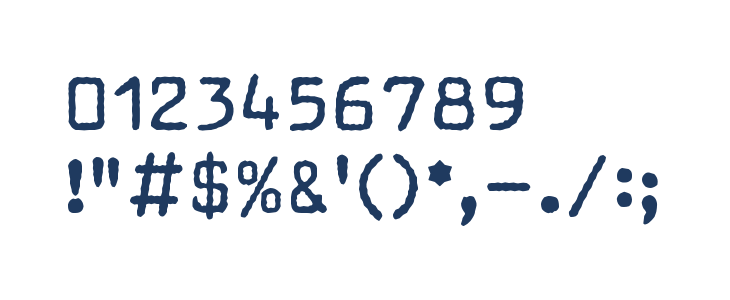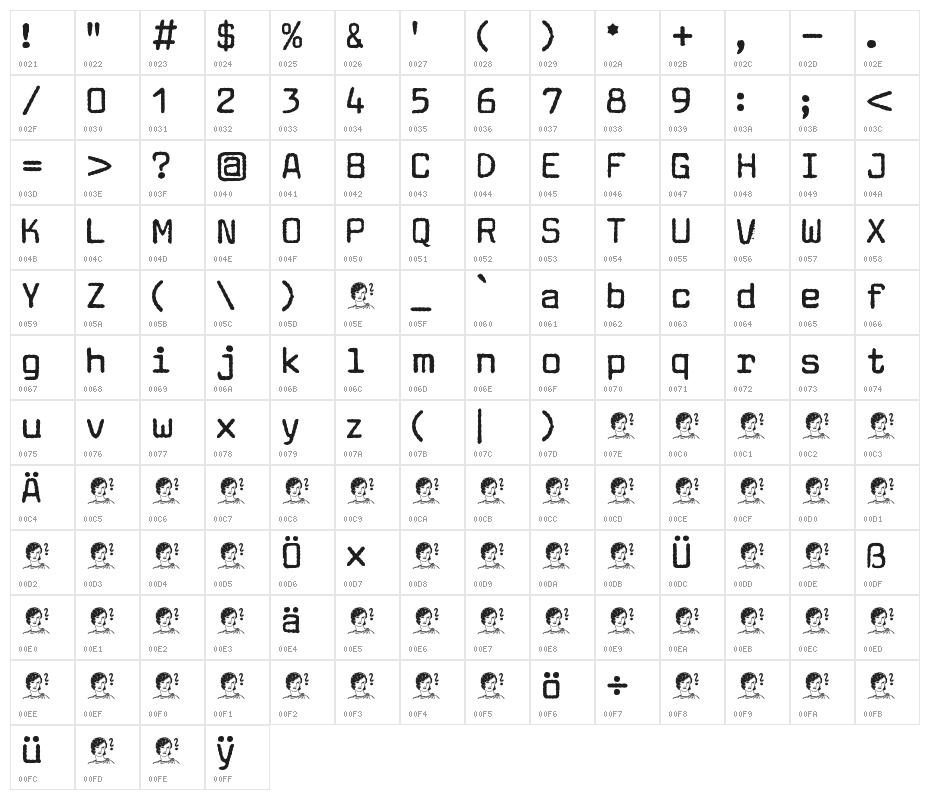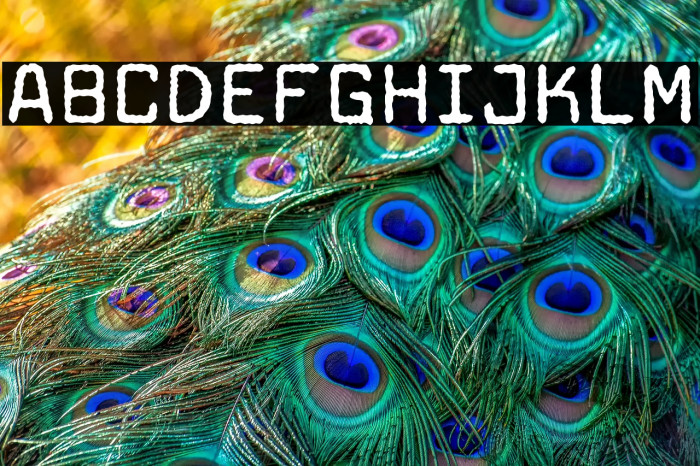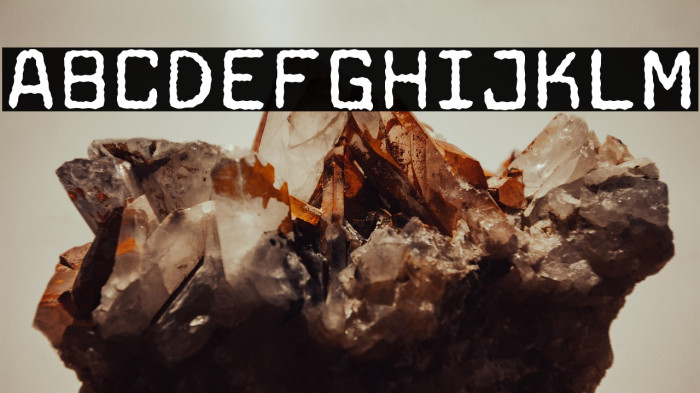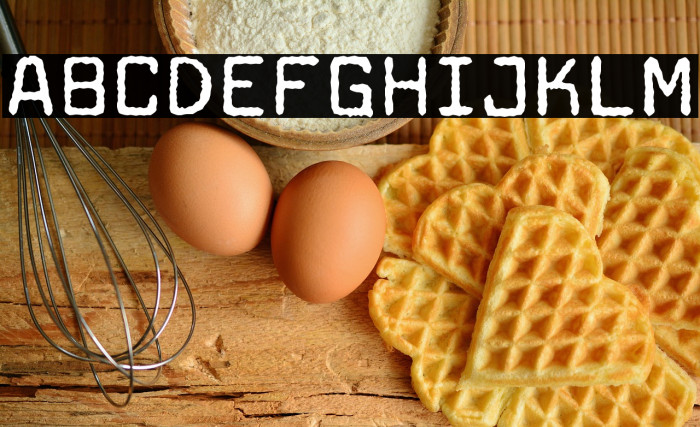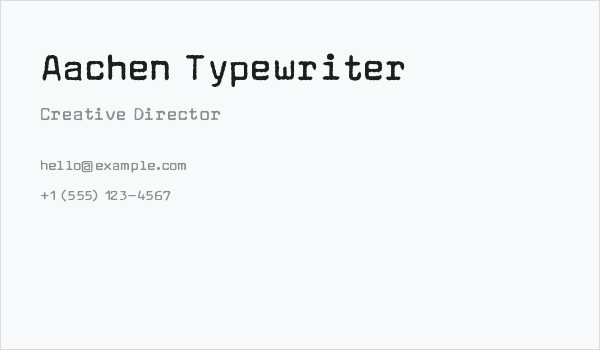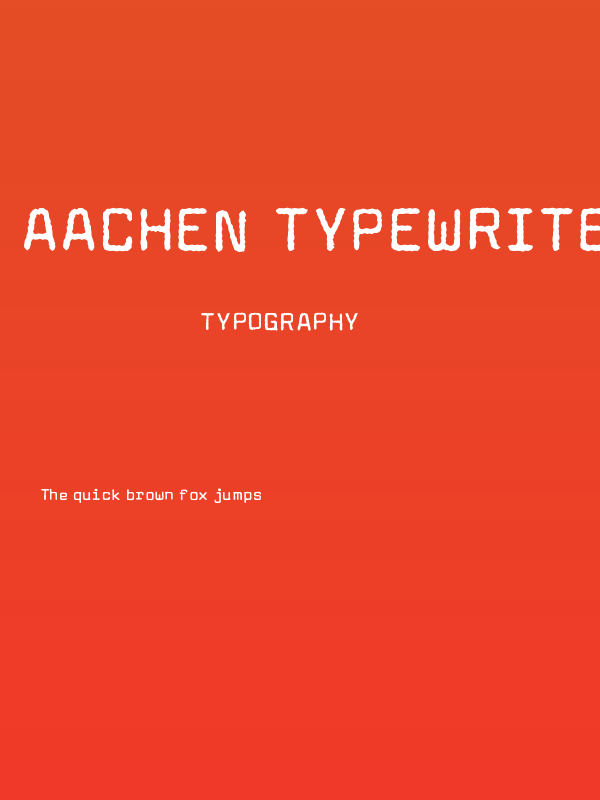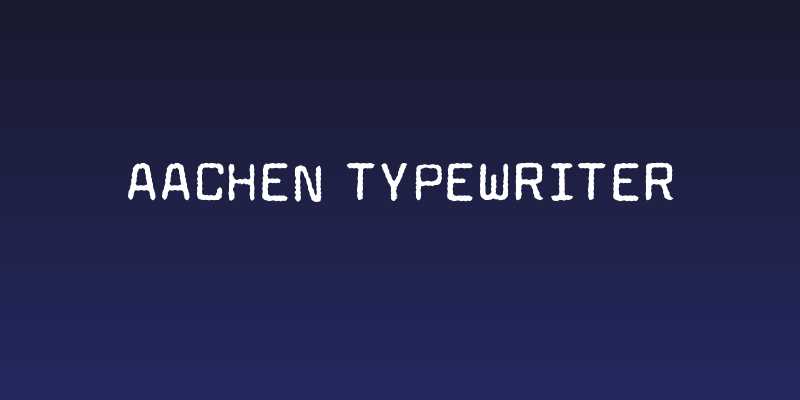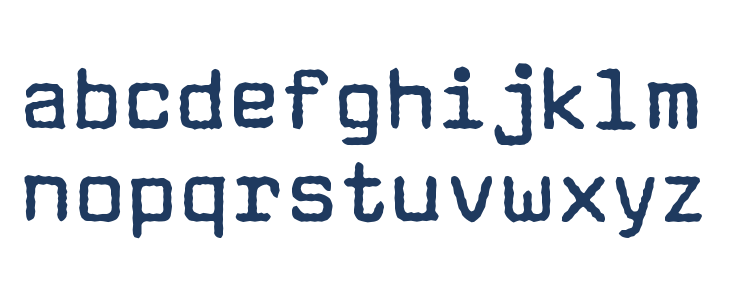
Aachen Typewriter Font
Aachen Typewriter Description
This typewriter-style font features a distinct, vintage aesthetic reminiscent of classic typewritten text. The characters are monospaced, giving each letter and number an equal amount of space, which is characteristic of traditional typewriter fonts. The edges of the characters are slightly rough, adding to the authentic, mechanical feel. The uppercase and lowercase letters maintain a consistent height, while the numerals are clear and easily distinguishable. Special characters are included, enhancing its versatility for various applications. The overall appearance is both nostalgic and functional, making it suitable for projects that require a retro or industrial touch.